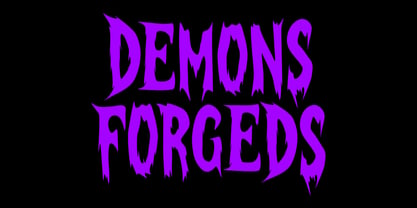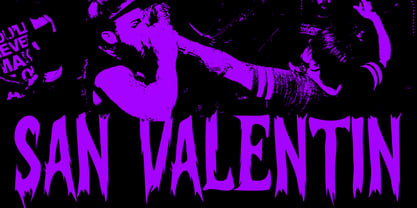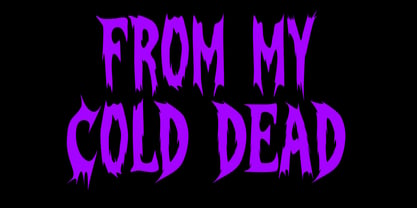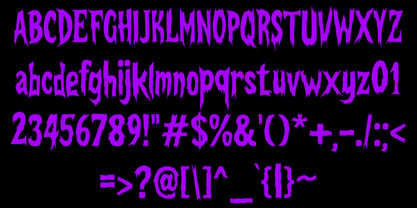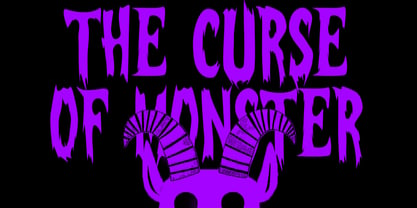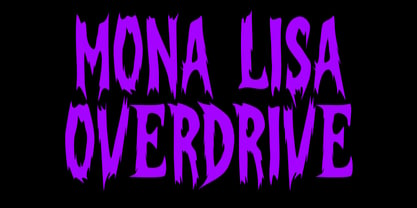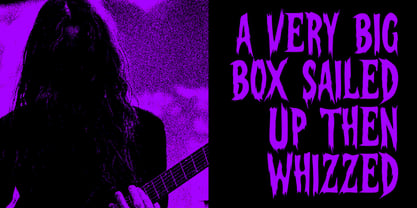
Demons Forgeds
by Stubborn Type
The Demons Forgeds Font Family was designed by Arya Zebua and published by Stubborn Type. Demons Forgeds contains 1 styles. More about this family
Demons Forgeds is a bold display typeface forged from dark fantasy, horror visuals, and raw hand-drawn energy. The letterforms feature sharp cuts, dripping edges, and irregular strokes that create a sense of menace and intensity. Every character feels alive uneven, aggressive, and deliberately unpolished. This font is designed to dominate attention. Its exaggerated shapes and dramatic silhouette make it ideal for dark-themed visuals where impact matters more than subtlety. Demons Forgeds embraces chaos, distortion, and visual tension, making it perfect for horror titles, metal artwork, occult branding, and underground design projects.
Designers: Arya Zebua
Foundry: Stubborn Type
Stubborn Type is an independent type foundry focused on character-driven display fonts. Built with a stubborn mindset, we design typefaces that refuse to blend in, refuse to be polite, and refuse to follow trends. Our work is rooted in bold forms, raw structures, and strong visual attitude. We believe type should speak clearly, hit hard, and leave a mark. Every font is crafted with intention prioritizing personality over perfection and expression over neutrality. Stubborn Type creates display fonts for designers who want their visuals to feel confident, direct, and unapologetic. From experimental letterforms to expressive handwritten styles, our typefaces are made to stand out on posters, branding, album covers, and digital screens.